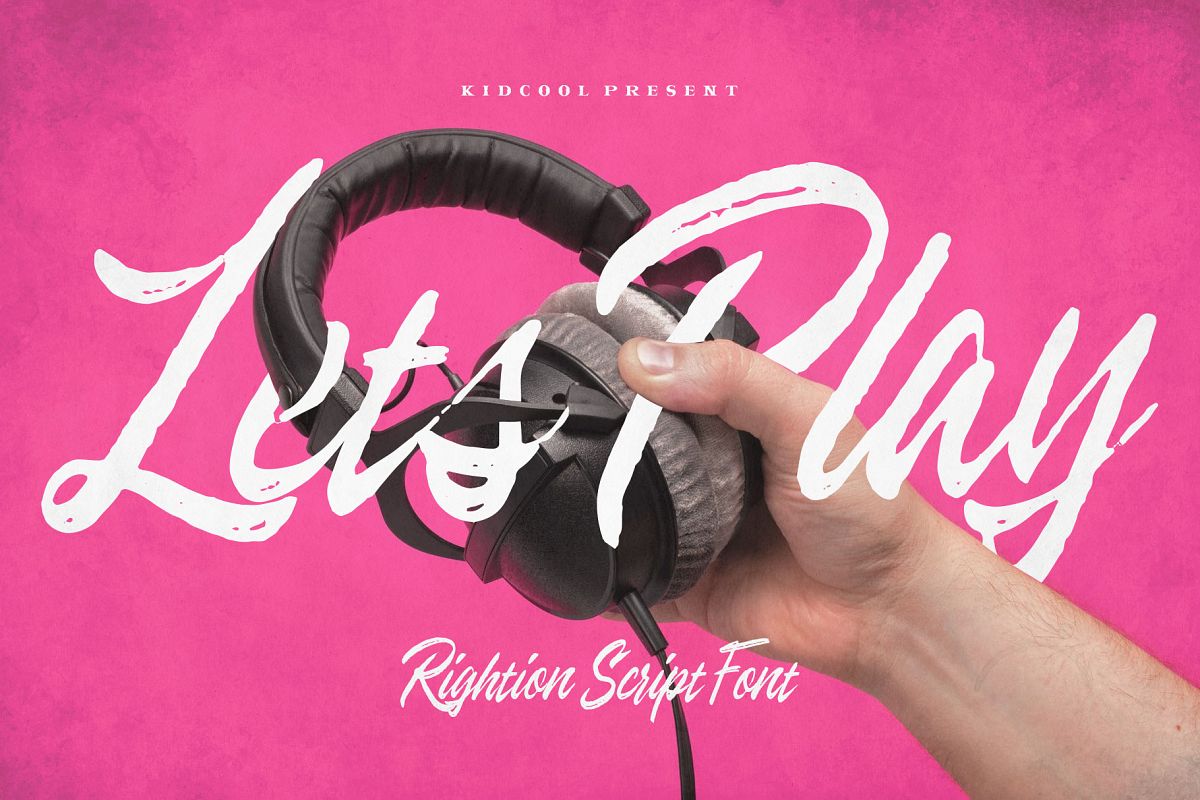
Rightion Handlettering
Rightion
Made to beautify your work, both in the field of graphic design or
author. This font is made in the style of handlettering, so that it adds
the impression of being free but elegant
features as follows.
• Numeral
• Alternate (Lowercase)